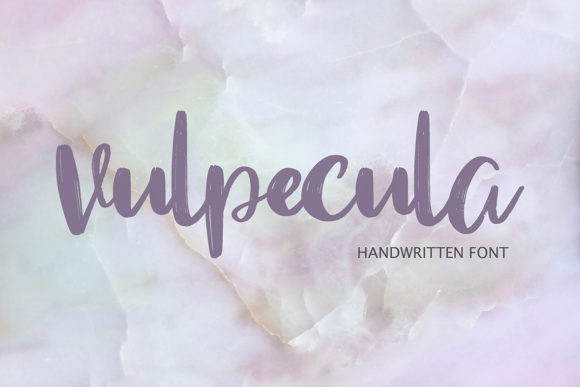
Vulpecula Font
Download Vulpecula Font for free! Created by Masha Artifex and published by Shaya Williams, this script font family is perfect for adding a unique touch to your designs.
Step into the enchanting world of Vulpecula Font, where the strokes of written words dance with grace and charm. This exquisite script font, crafted by the visionary Masha Artifex, is not just a collection of letters; it's a gateway to creativity, a whisper of elegance that transforms your designs into captivating masterpieces.
Vulpecula Font is not merely a typeface; it's a vessel for your thoughts and emotions, a symphony of ink that sings on the page. Its every curve and flourish exudes a touch of whimsy and wonder, beckoning you to embrace its magic and let your imagination soar.
Whether you're a seasoned designer or just beginning your journey into the world of typography, Vulpecula Font is the perfect companion. Its versatility knows no bounds, lending itself effortlessly to a myriad of projects. From enchanting invitations to heartfelt letters, from whimsical branding to stunning social media posts, Vulpecula Font adds a touch of enchantment to every word you write.
Immerse yourself in the beauty of Vulpecula Font, and discover the power of handwritten elegance. Allow its graceful strokes to guide your creativity, to transform your designs into works of art that captivate and inspire. With Vulpecula Font, your words will take flight, carrying your message with a touch of magic that will leave a lasting impression.